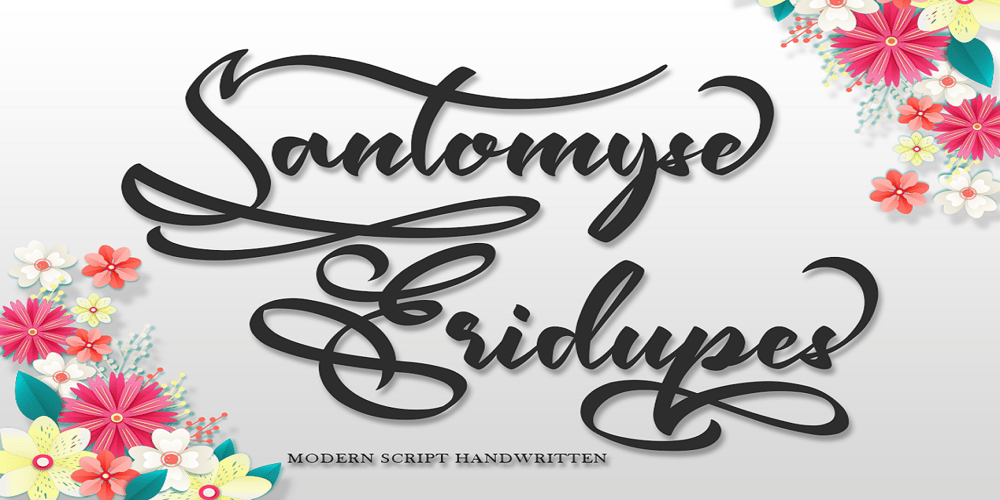
Santomyse Eridupes Font Family was designed by Saiful Anwar and published by Sealoung. Santomyse Eridupes contains 1 styles and family package options. Santomyse Eridupes is a delicate, elegant and flowing handwritten font. It has beautiful and well balanced characters and as a result, it matches a wide pool of designs. The Glisten features a varying baseline, smooth lines, gorgeous glyphs and stunning alternates. Add it to your most creative ideas and notice how it makes them come alive!